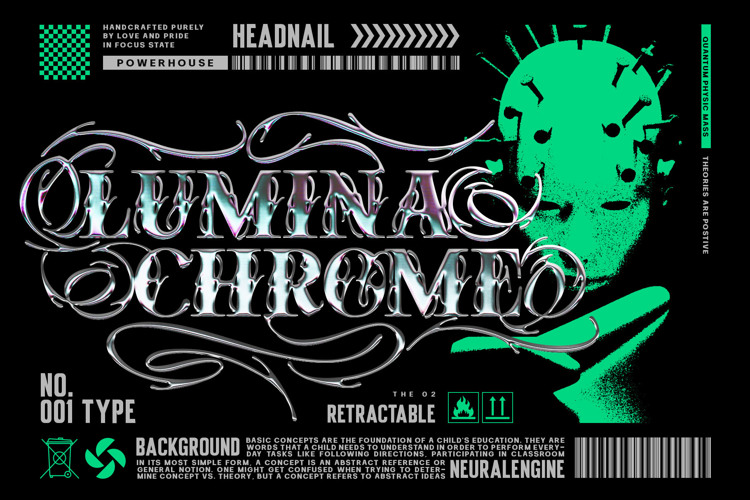
Soullar Font
Soullar Typeface: The Liquid Chrome Edge for Modern Streetwear
Unlock the dark, fluid energy of the streets with Soullar, a premium typeface designed at the intersection of urban chrome aesthetics and mysterious liquid textures. Originally crafted by Alit Design Studio, Soullar isn’t just a font—it’s a visual statement for those who dare to push the boundaries of modern typography.
Inspired by the reflective, organic shapes of molten metal and high-end streetwear culture, Soullar features unique "Liquid Edges" that create a creepy yet sophisticated atmosphere. Whether you are designing a high-profile brand identity, edgy apparel, or immersive digital art, this font provides the "mysterious chrome" look that is currently dominating the design world.